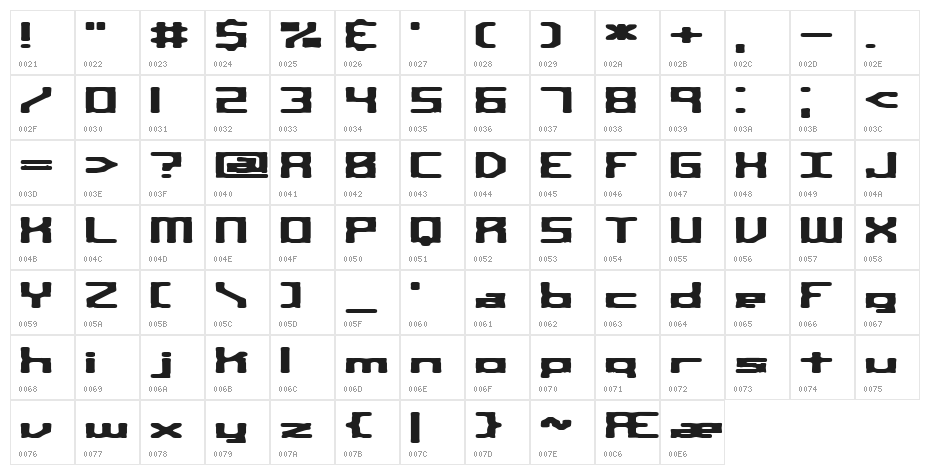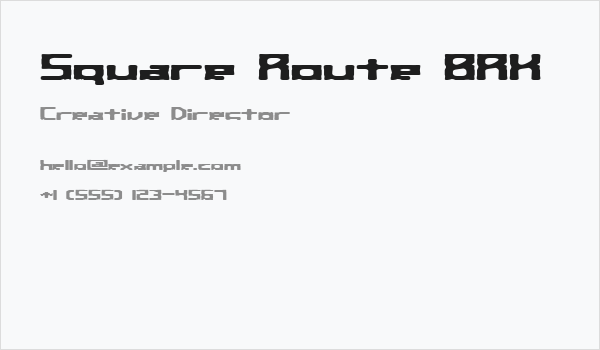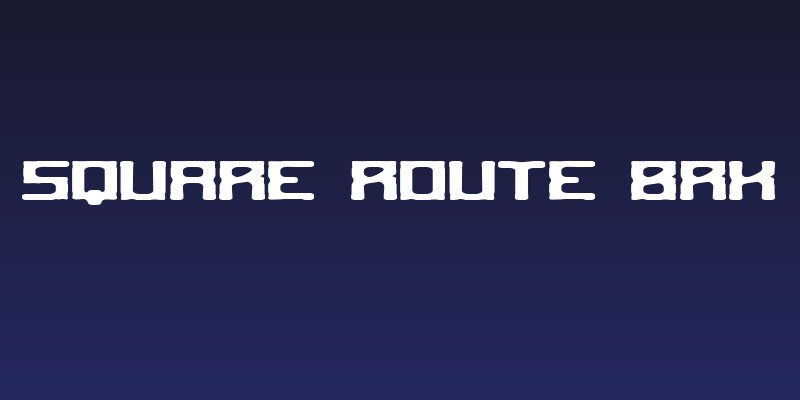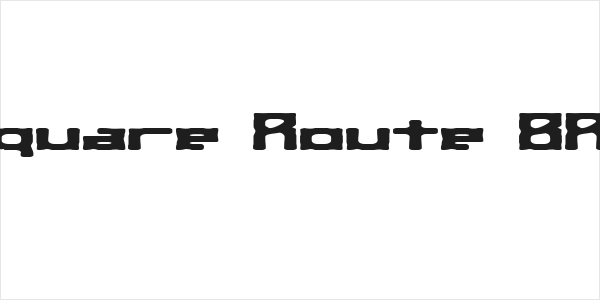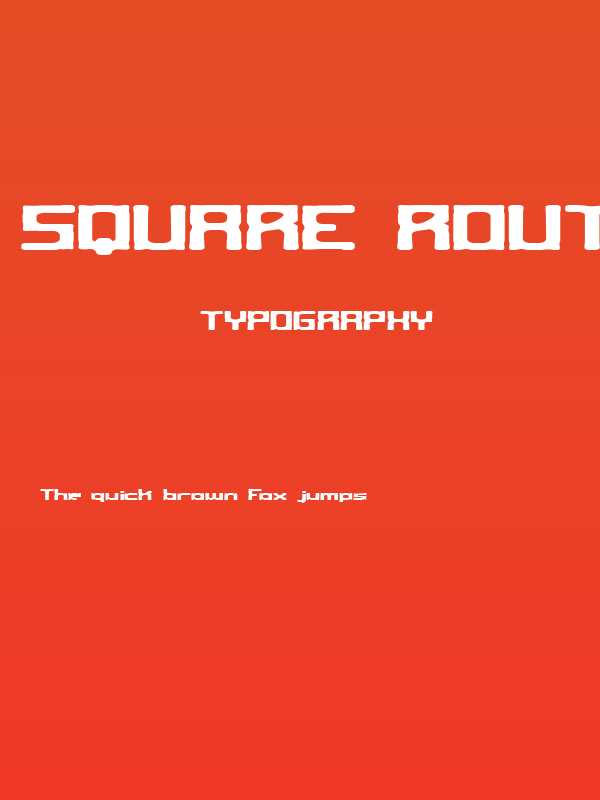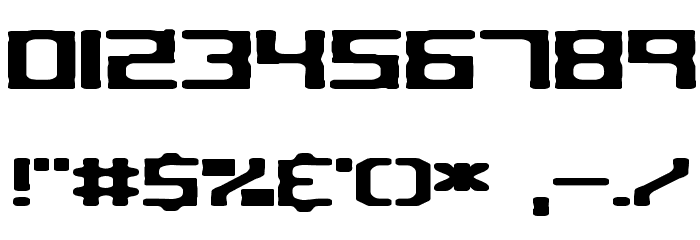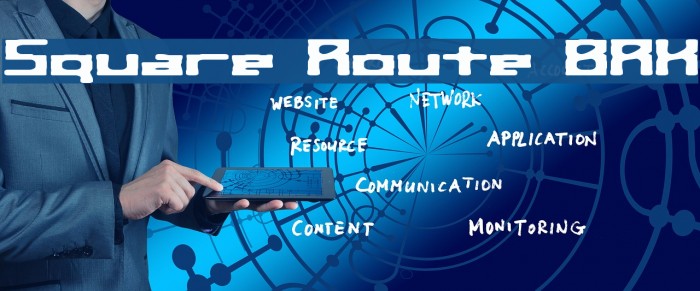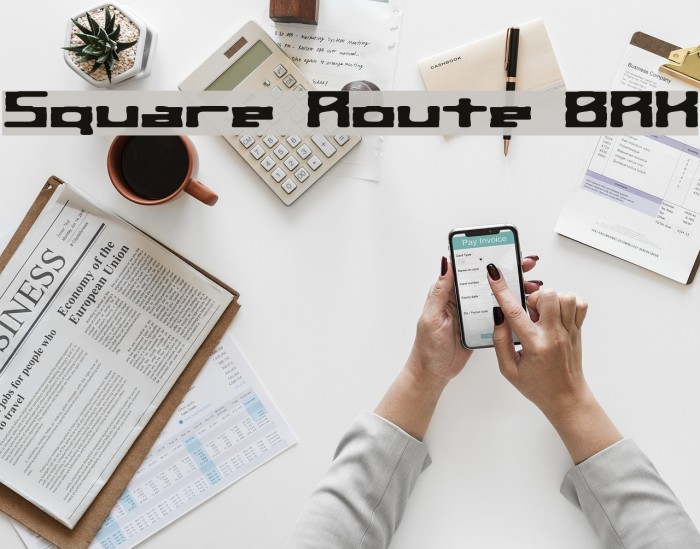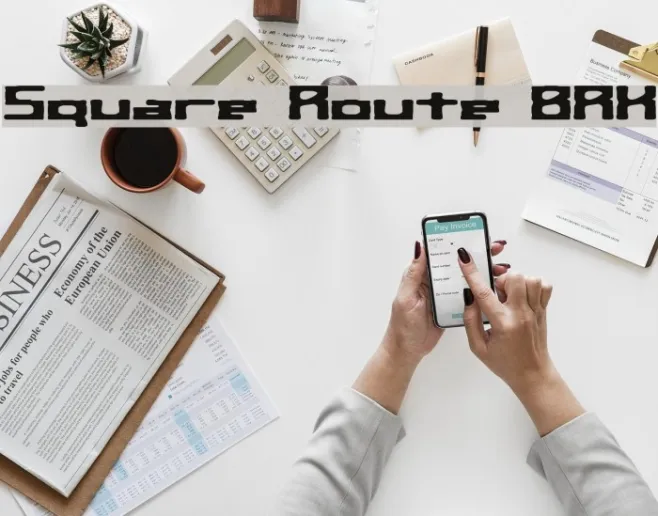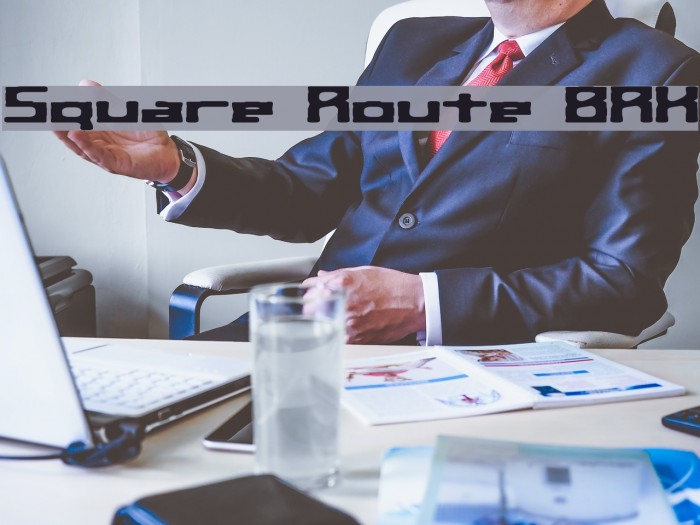
Square Route BRK Font
Square Route BRK Description
This font features a bold, geometric design with a futuristic and digital aesthetic. The characters are constructed with a blocky, angular style that gives them a distinct, tech-inspired look. The uppercase and lowercase letters maintain a consistent width, creating a uniform appearance across the typeface. The numerals and special characters follow the same design principles, ensuring coherence throughout. The font's unique style makes it stand out, with its sharp edges and solid structure, ideal for projects that require a modern and edgy feel.
SQUARE-ROUTE-BRK UPPERCASE
SQUARE-ROUTE-BRK LOWERCASE
SQUARE-ROUTE-BRK OTHER CHARS
| Proposed Projects | Ideal for technology branding, video game titles, digital media, and futuristic-themed posters. |